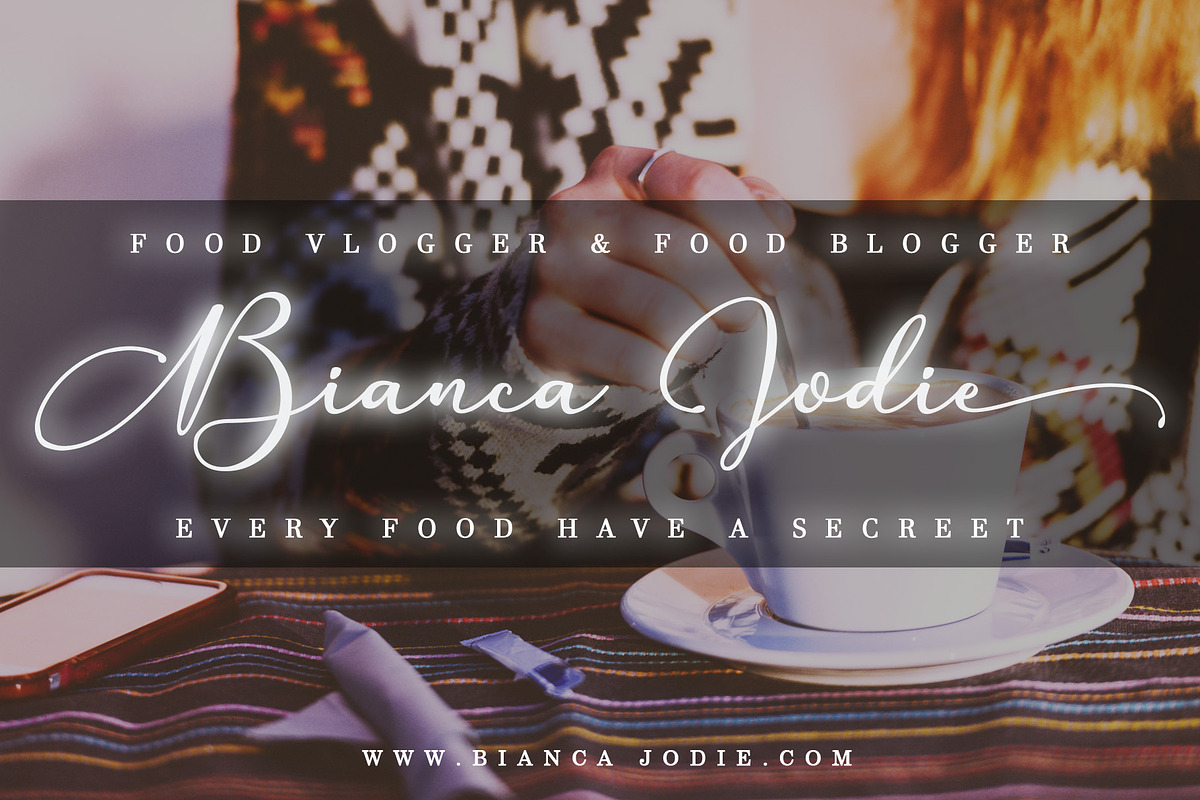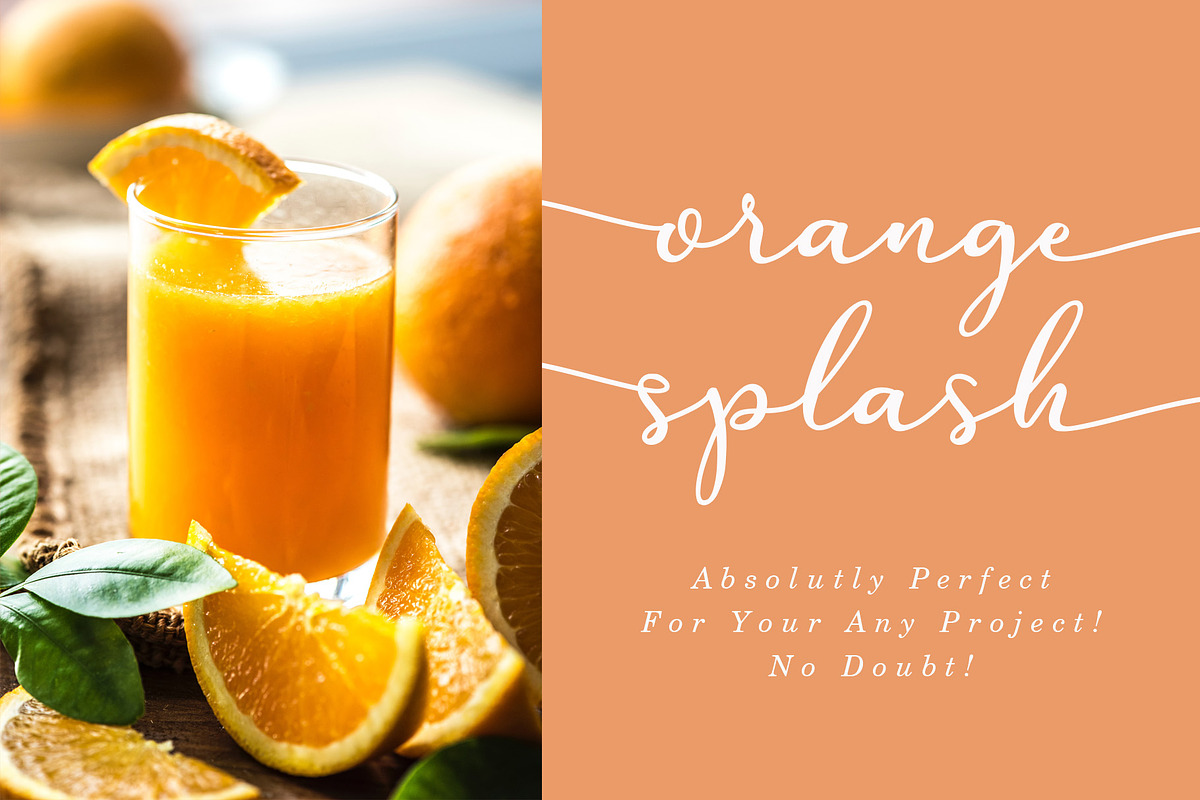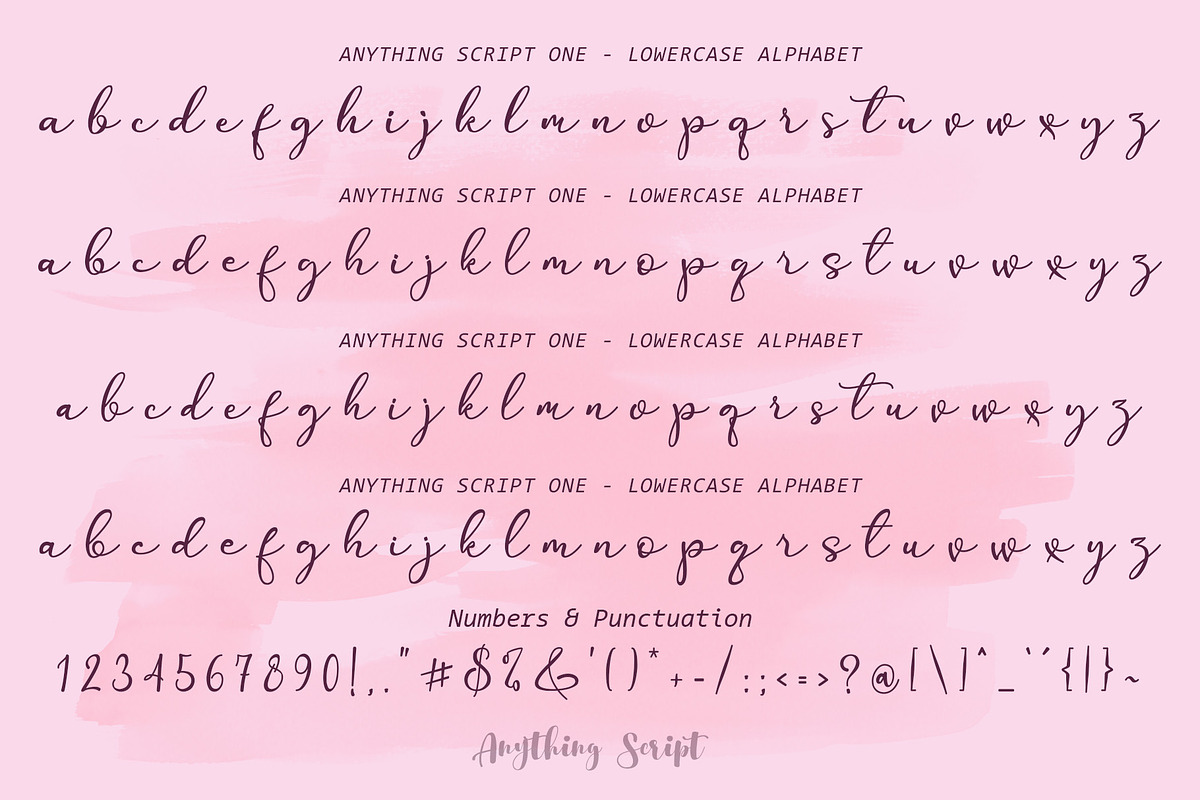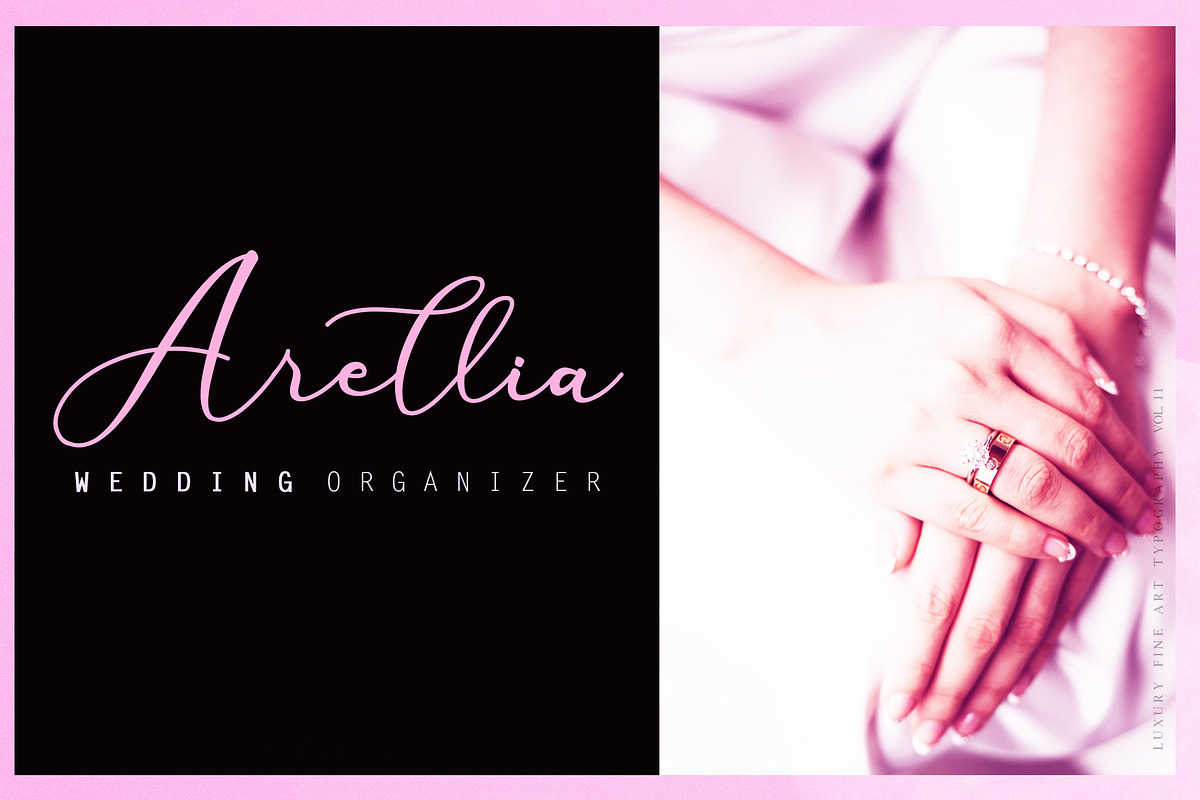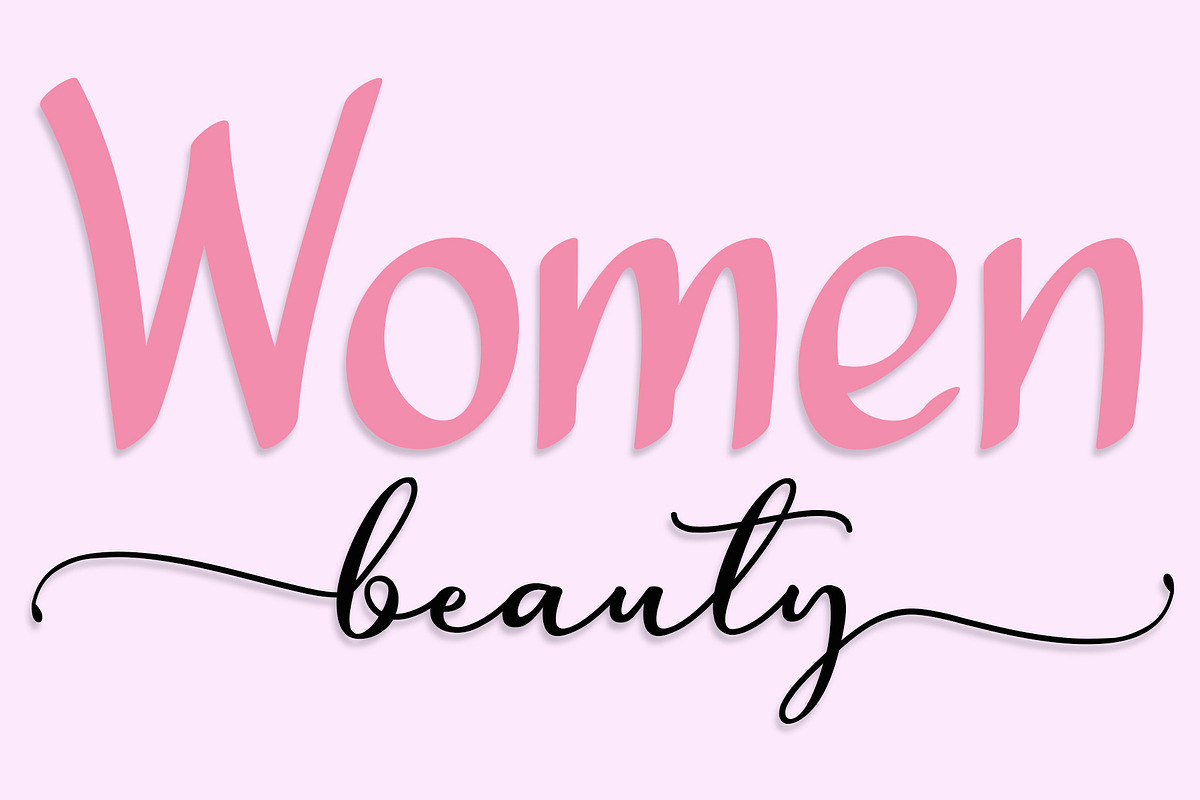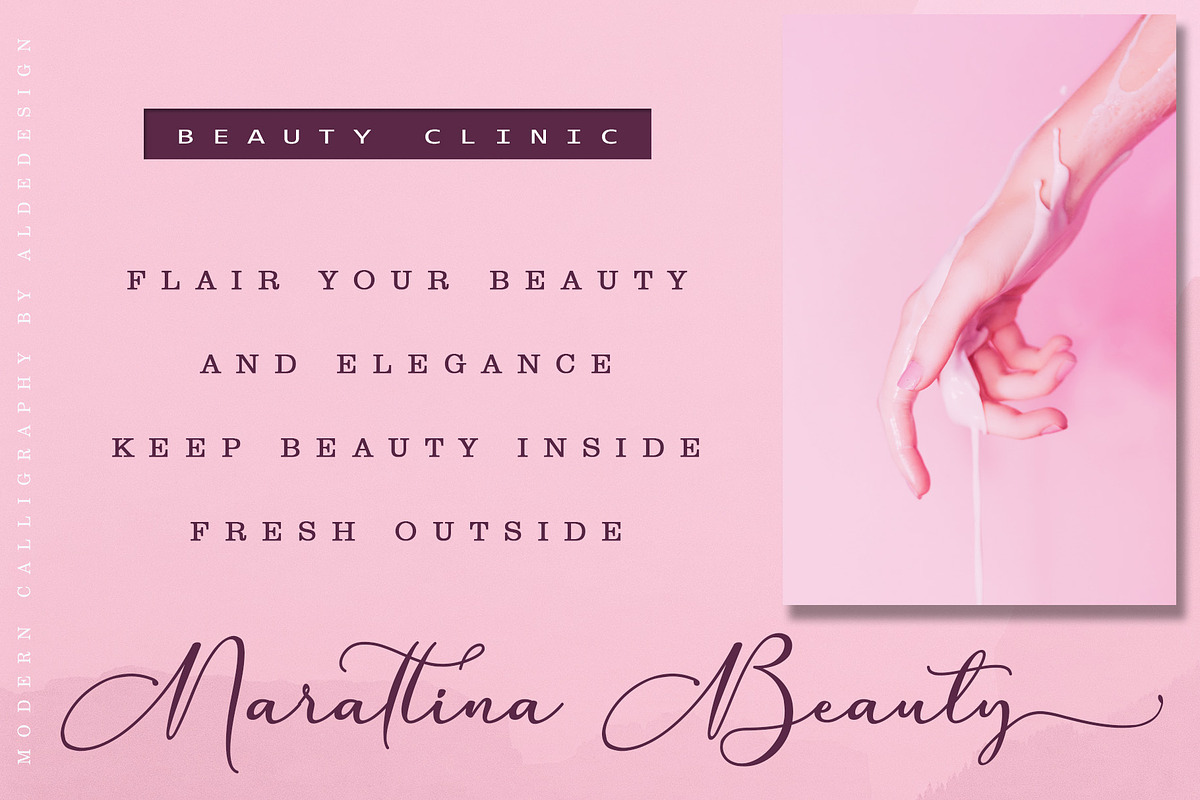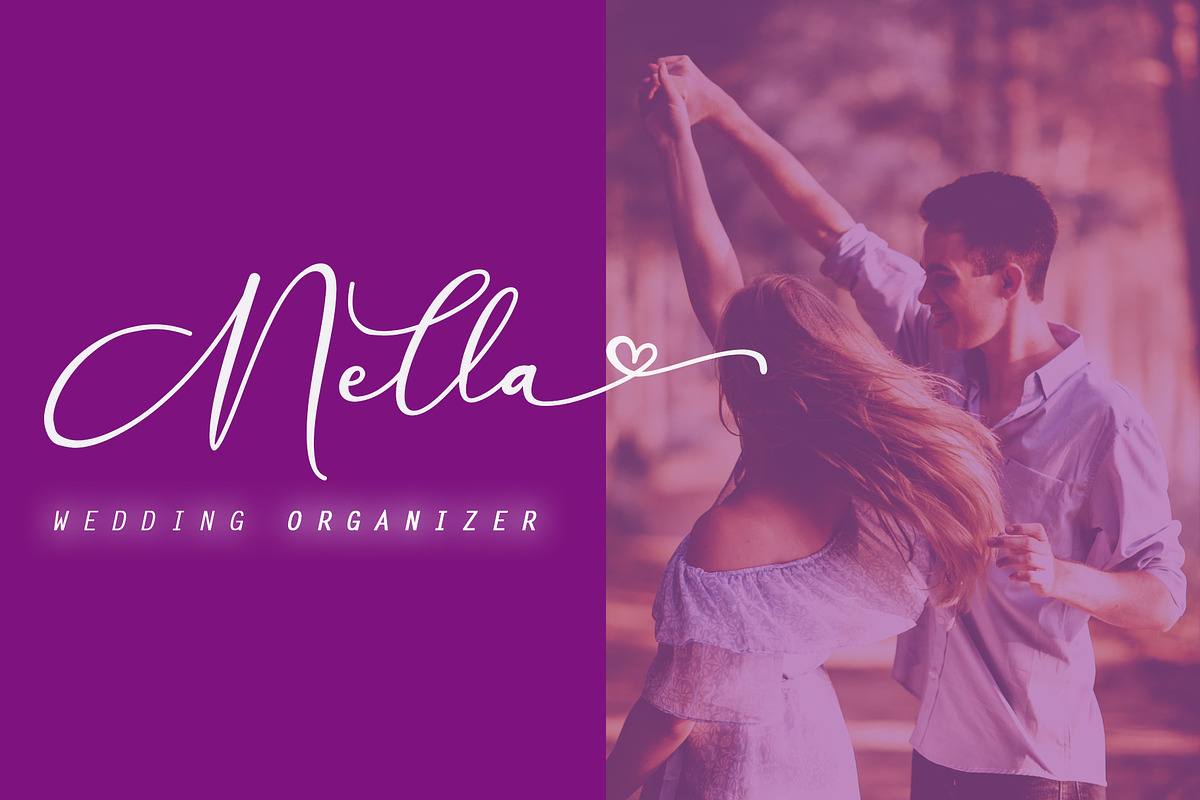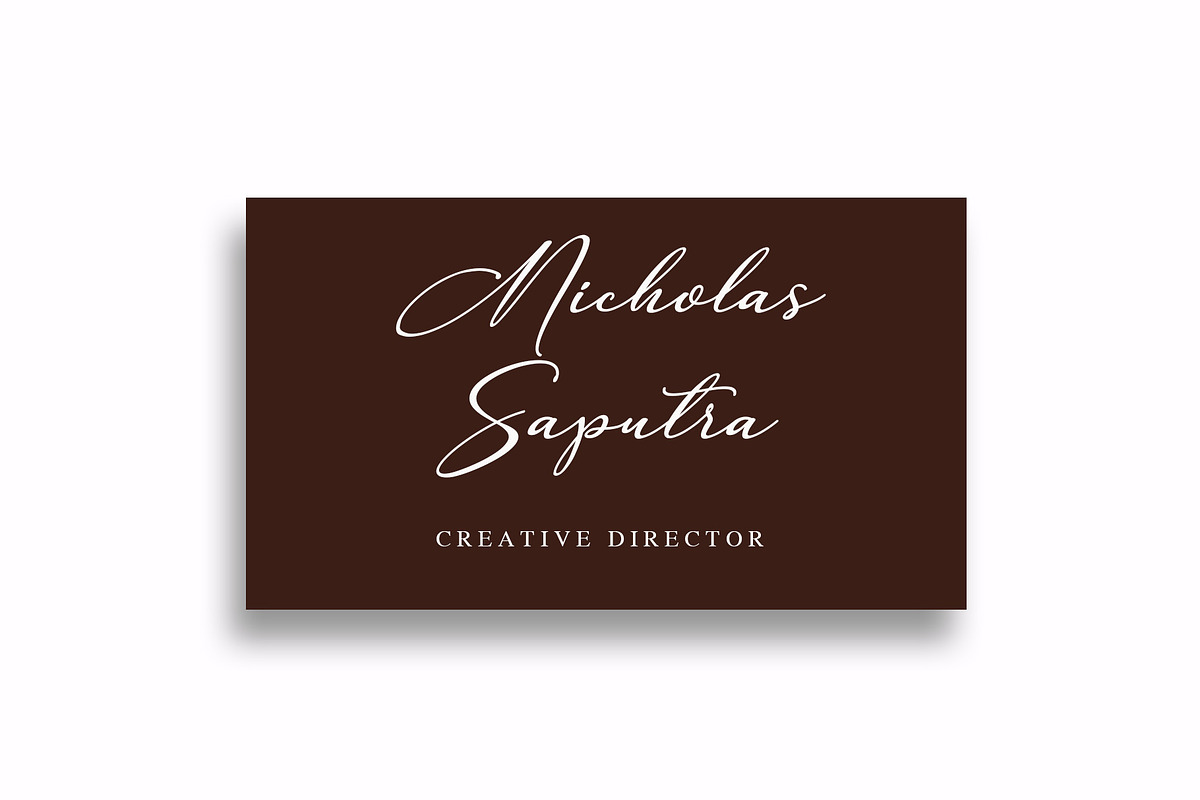
Anything Script || 8 Fonts
Anything Script is a stylish script font that features a varying baseline, smooth line, modern and with a depth love. For those of you who are need a touch of love and modernity for your designs or branding, it can be used for various purposes such as headings, wedding, invitation, signature, logos, branding, t-shirt, letterhead, signage, lable, news, posters, badges etc.